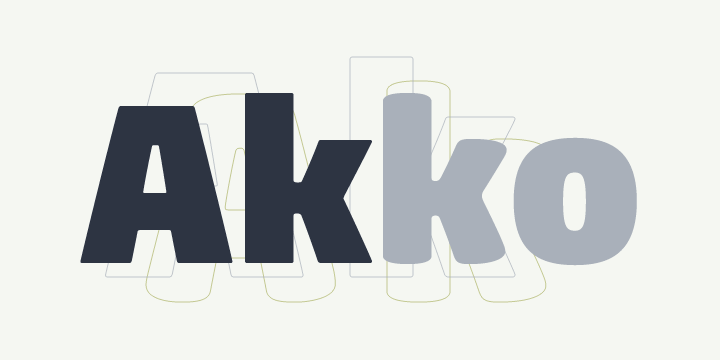
Akko is named after its designer, Linotype’s type director Akira Kobayashi, who began working on the type family in early 2010. “I originally planned to design a sans serif font with rounded corners,” he explains. “But then I became attracted to the idea of an industrial, engineered design, something similar to the rectilinear form of DIN Next™, but with curved strokes and soft proportions.”
By combining the austere industrial concept with the softer, friendlier aspects, Kobayashi managed to create two typeface families in one: Akko and Akko Rounded. Both can be seen as a stylistic blend of two extremes — the restrained and functional DIN Next and the organic, informal Cooper Black™. More…
The characters of Akko and Akko Rounded are characterized by simplicity and compactness; they provided a stylish solution whenever space-saving becomes an issue. For this reason, Akira Kobayashi paid particular attention to the design of the counters and the junctions between strokes. The softly rounded diagonal strokes in letters such as A, V, K, v and y ensure that no dark areas are produced within texts. The appearance of text set in these fonts is thus homogeneous, straightforward and warm.
Akira Kobayashi has been working as Type Director at Linotype since 2001. He has reworked and enhanced many major typeface families, collaborating with Adrian Frutiger on Avenir® Next and with Hermann Zapf on Optima® Nova, to name but a few of his projects. Published in 2011, the Akko™ font family was the first Kobayashi original in quite some time – it has been worth the wait.